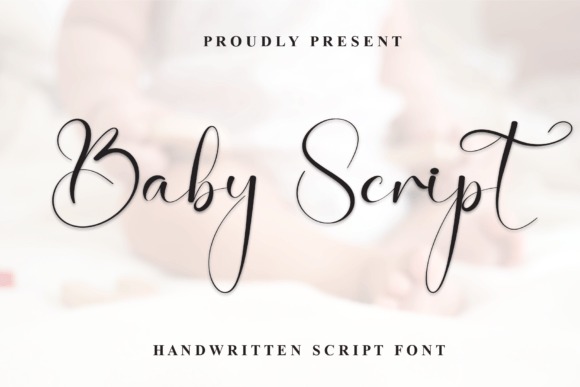
Introduction to Baby Script Font
Baby Script is a stylish and incredibly elegant script font.
Why Choose Baby Script Font?
Baby Script Font offers exceptional quality and versatility, making it a valuable addition to your design toolkit. Whether you’re creating for personal projects or commercial use, Baby Script Font delivers professional results.